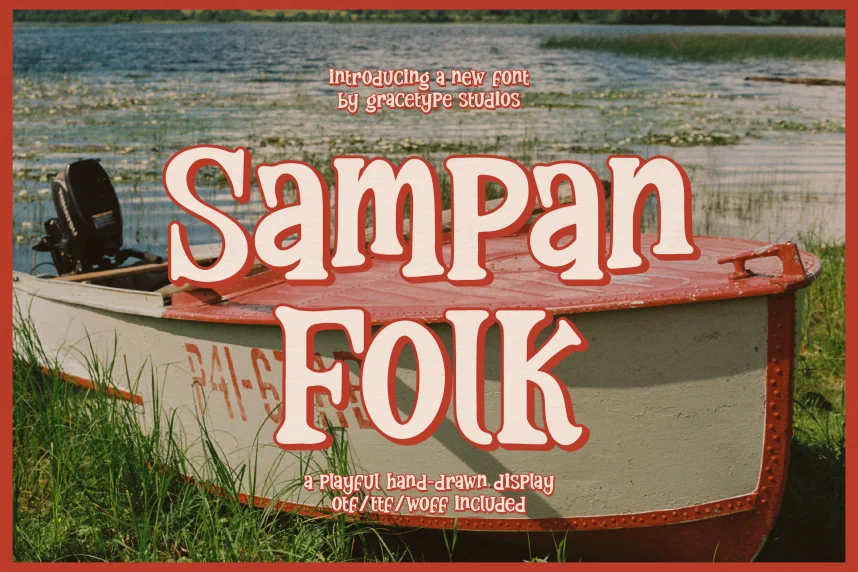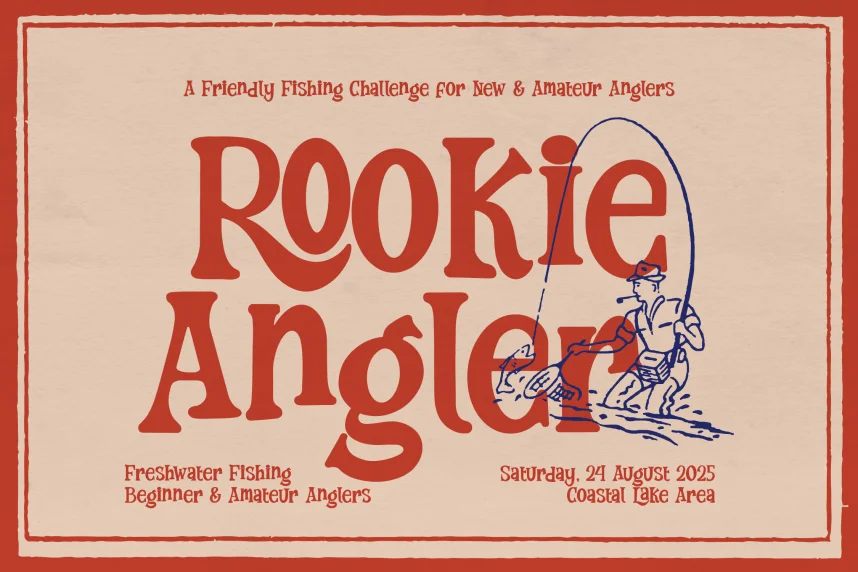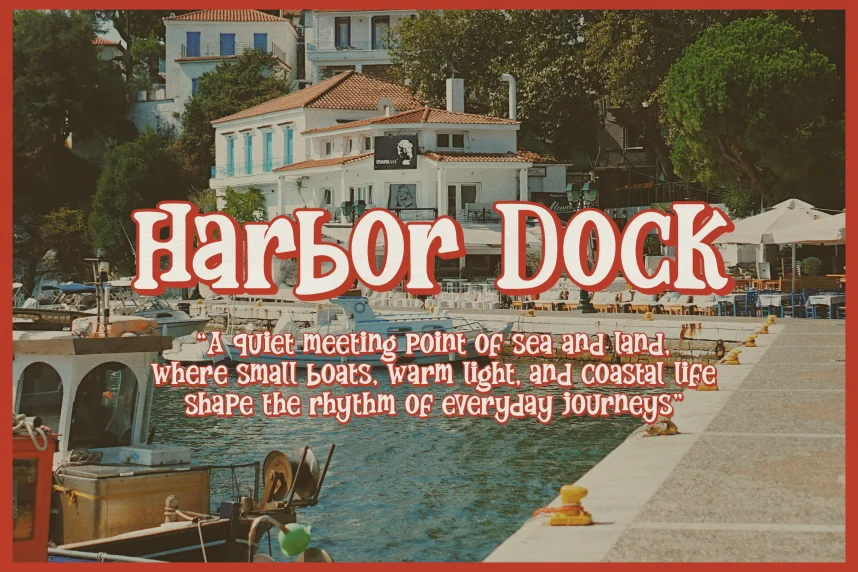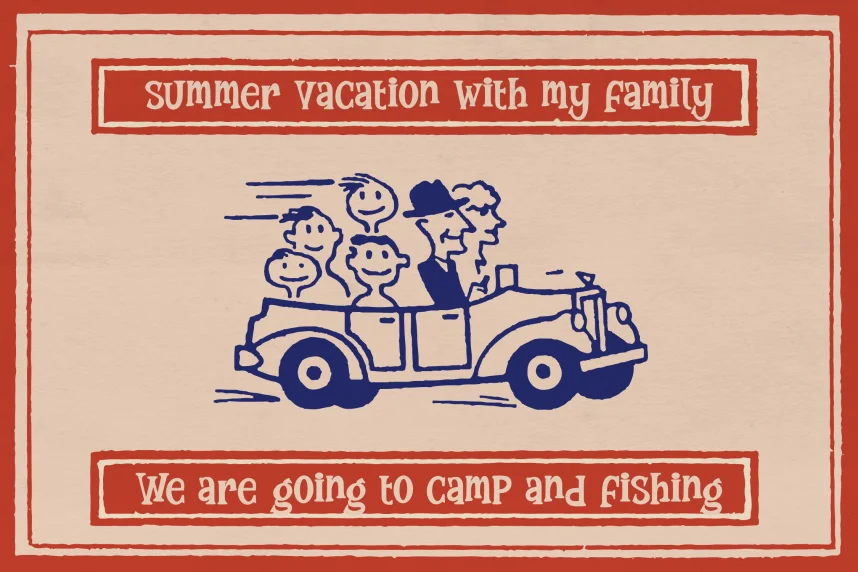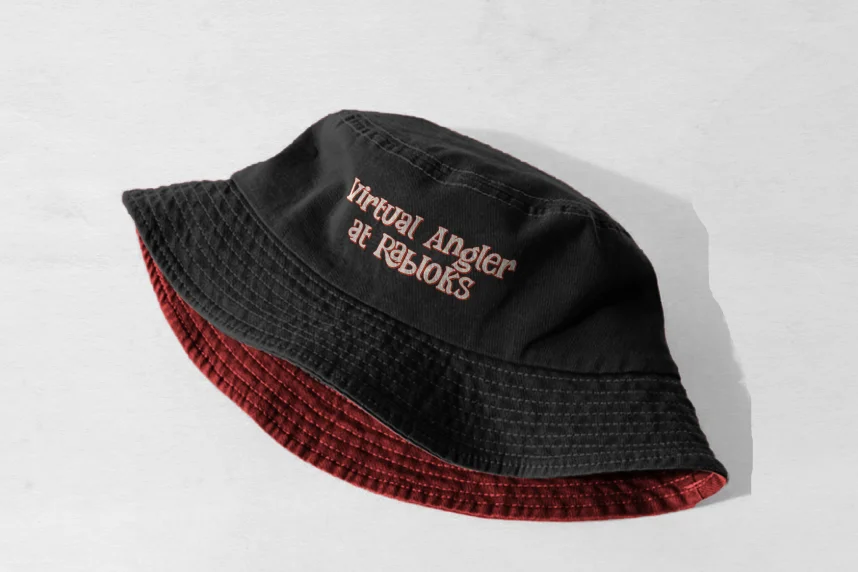
Sampan Folk Font is a rustic, handcrafted typeface with a vintage feel. Its irregular edges and bold strokes give it a unique, artisanal appearance, making it ideal for branding, signage, and rustic-themed designs that need to feel authentic and down-to-earth.